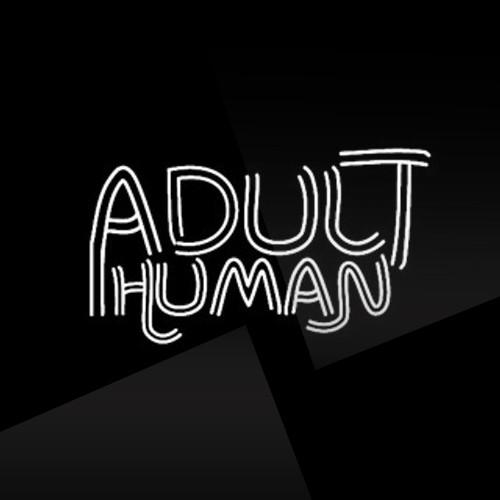
Bartleby Font Description
BARTLEBY is a hand-drawn all-caps display font. It contains 3 weights of the font; Regular, Bold, and Black. It can be used for various purposes such as headings, logos, invitations, t-shirt designs, greeting cards, posters, labels, book covers, brochures, and much more!